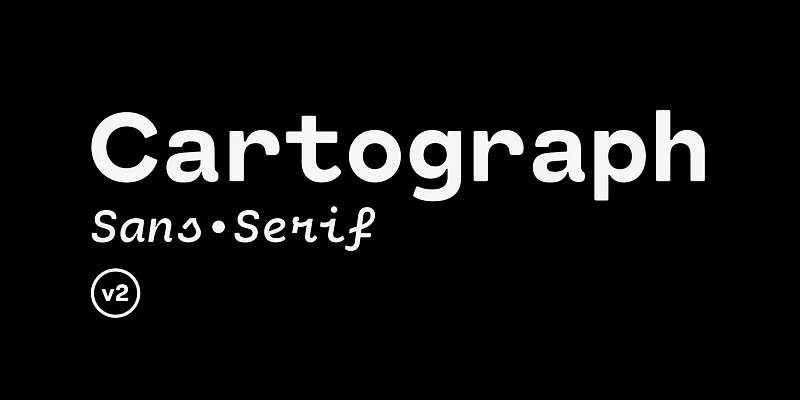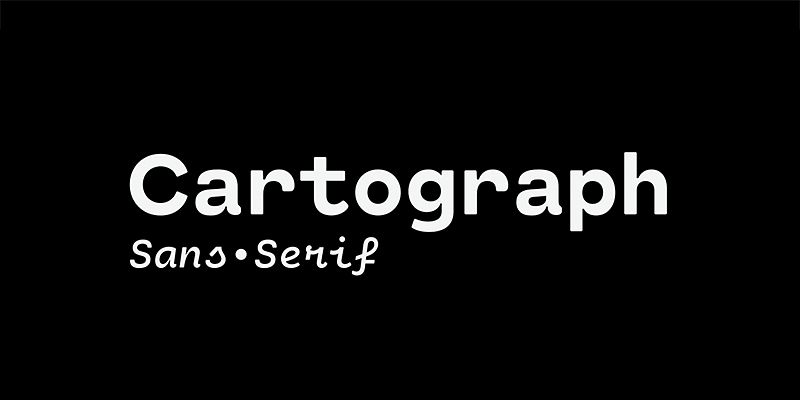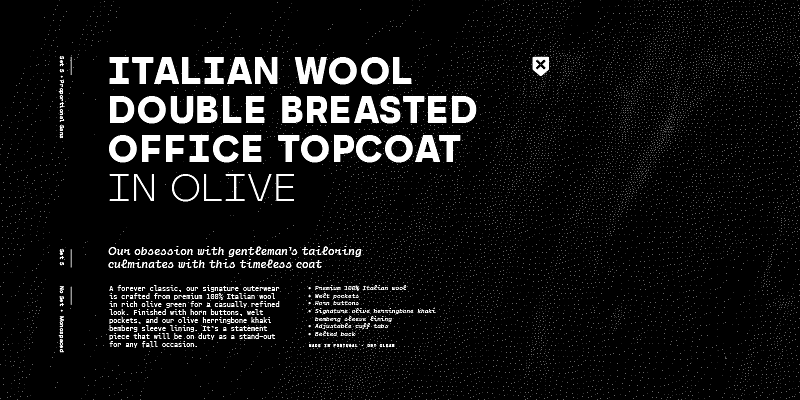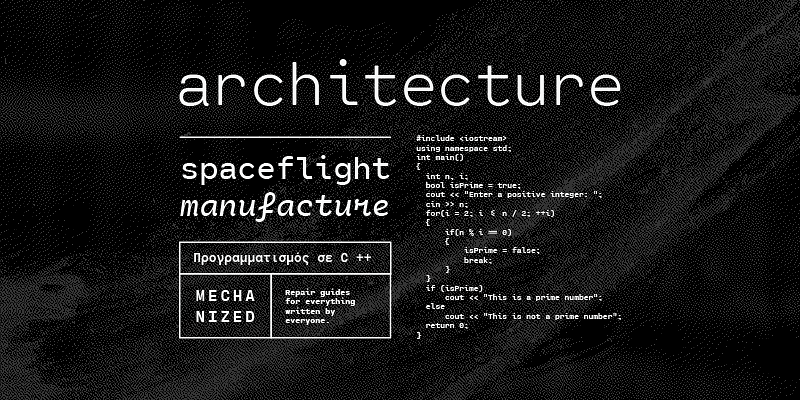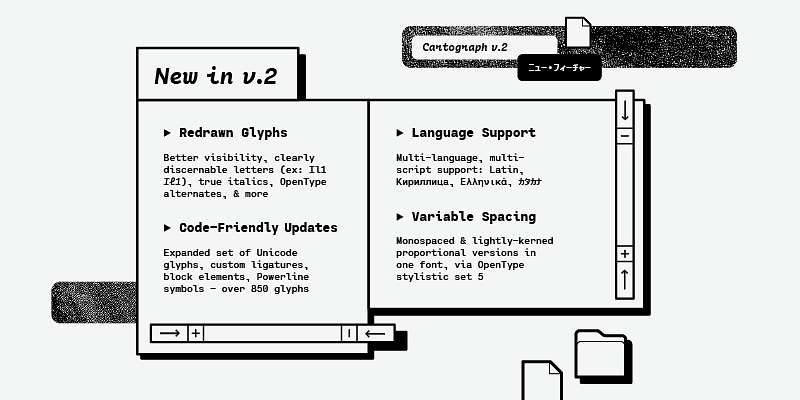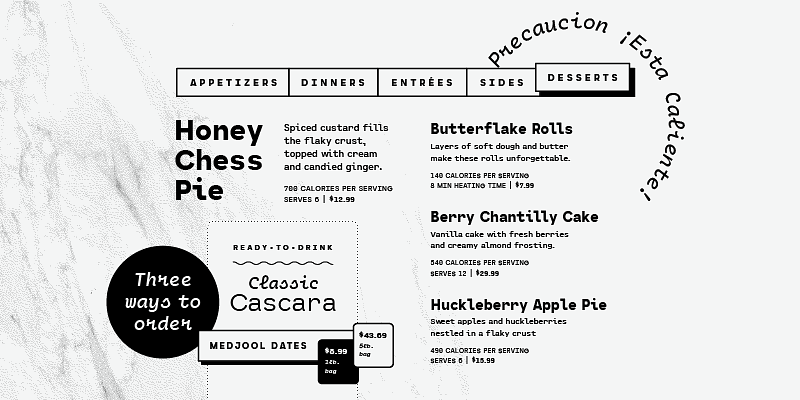
A monospaced typeface with character and warmth, Cartograph© CF is a handsome font family featuring a lush, cursive italic, code-friendly ligatures, and a proportional set accessible via OpenType. A tribute to the utilitarian beauty of terminals and typewriters, Cartograph excels in both code and prose.